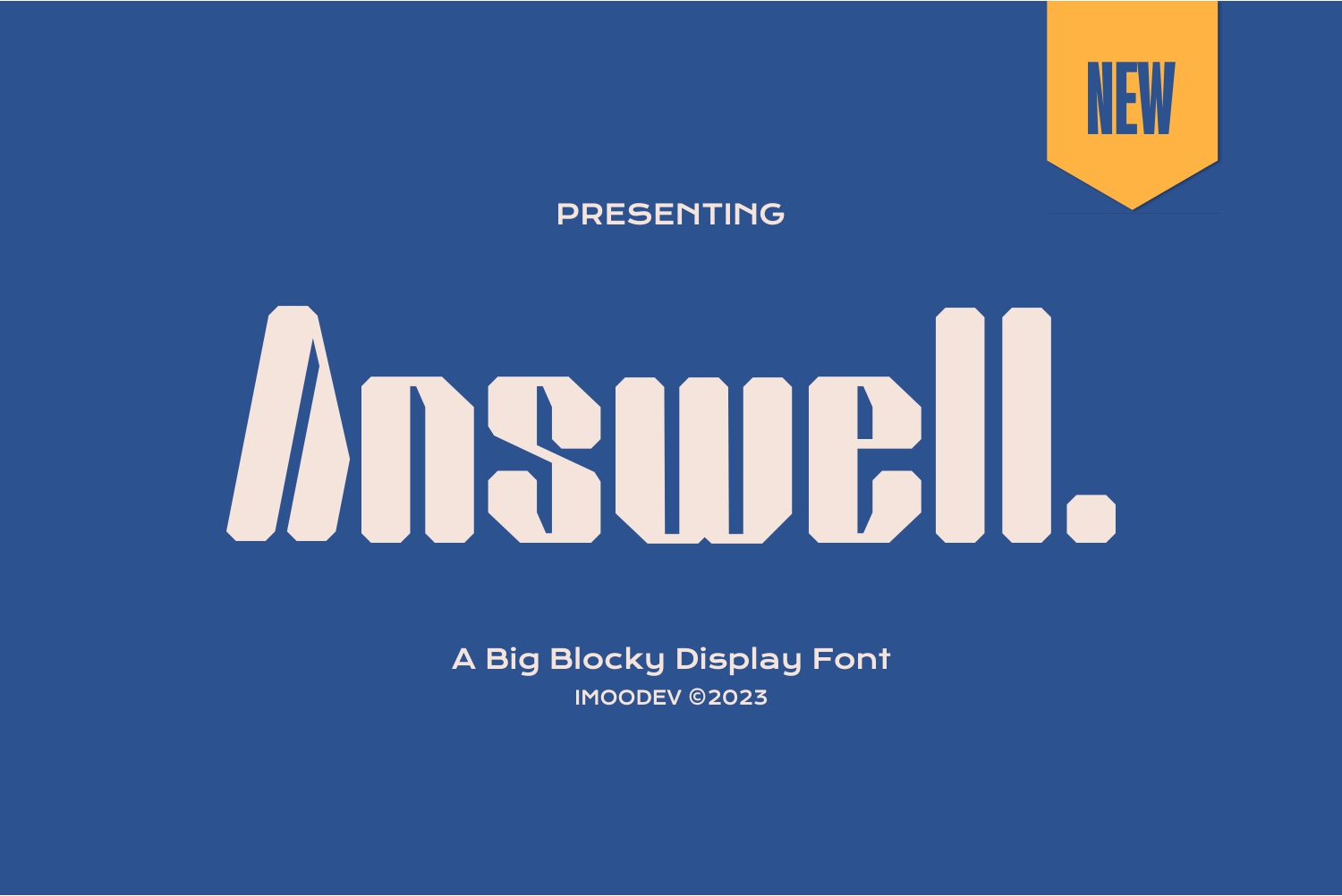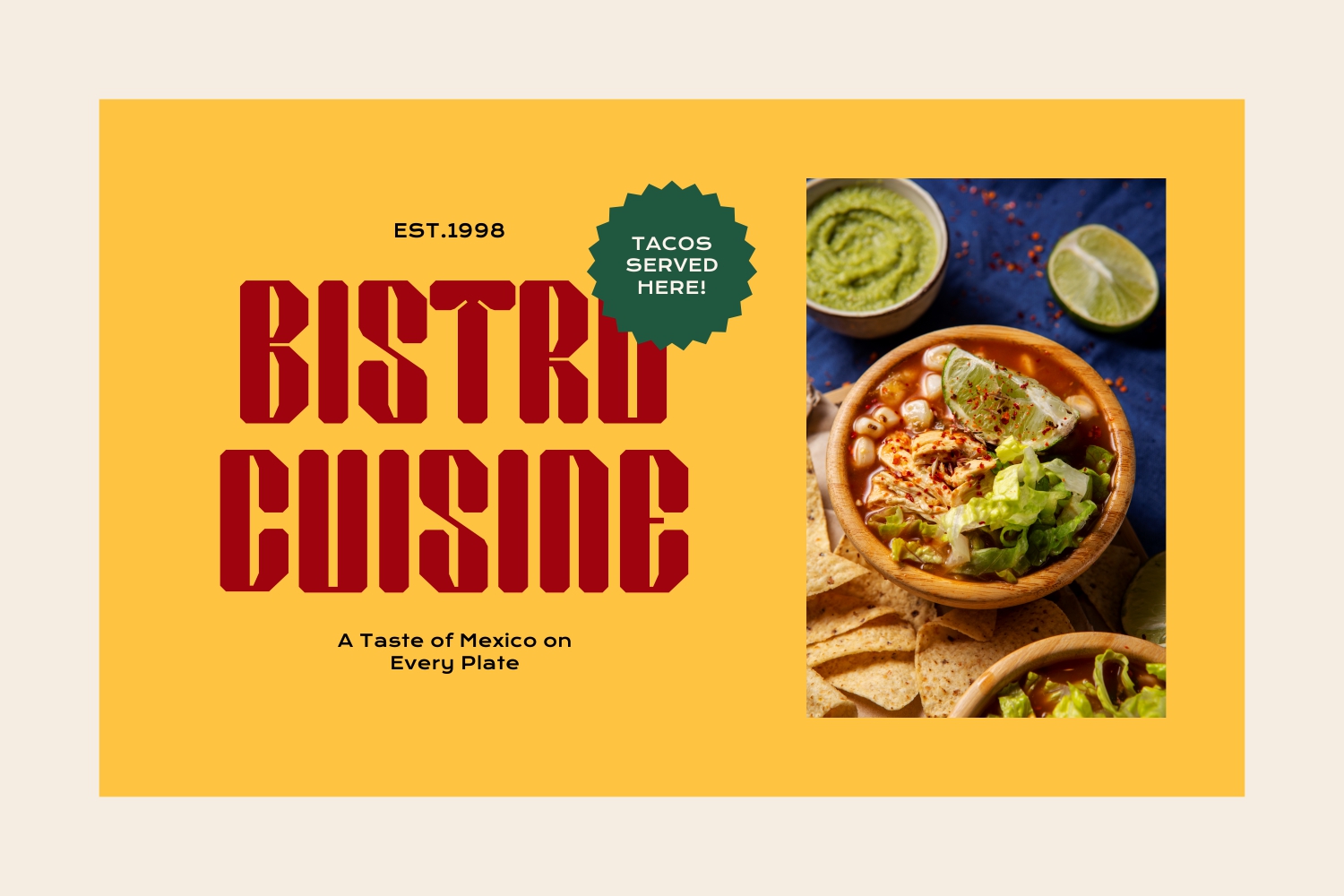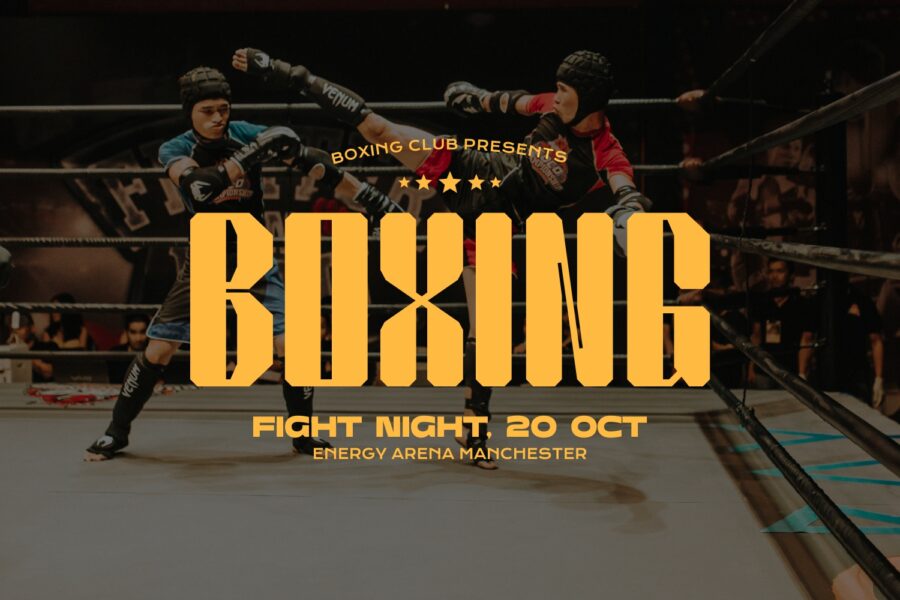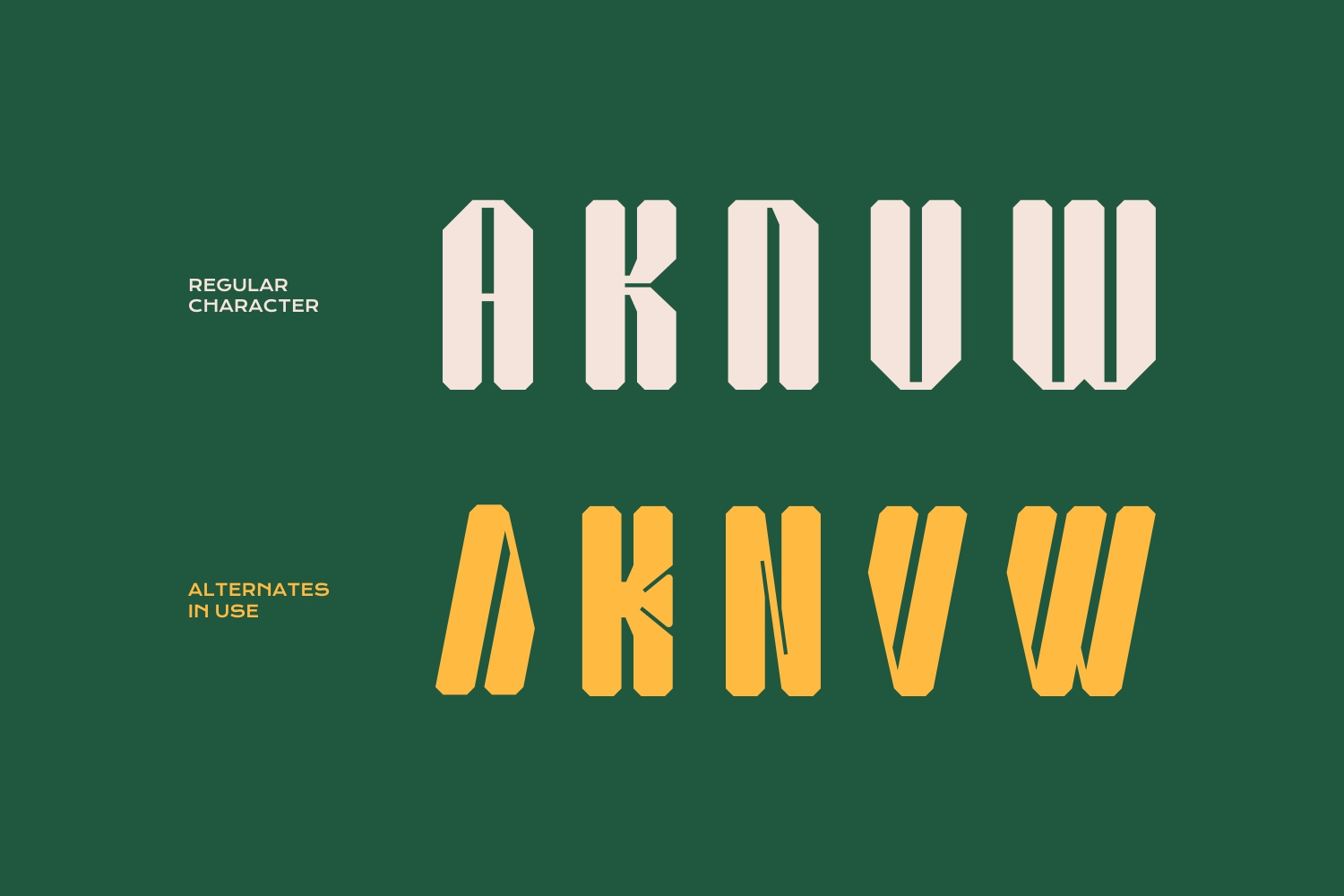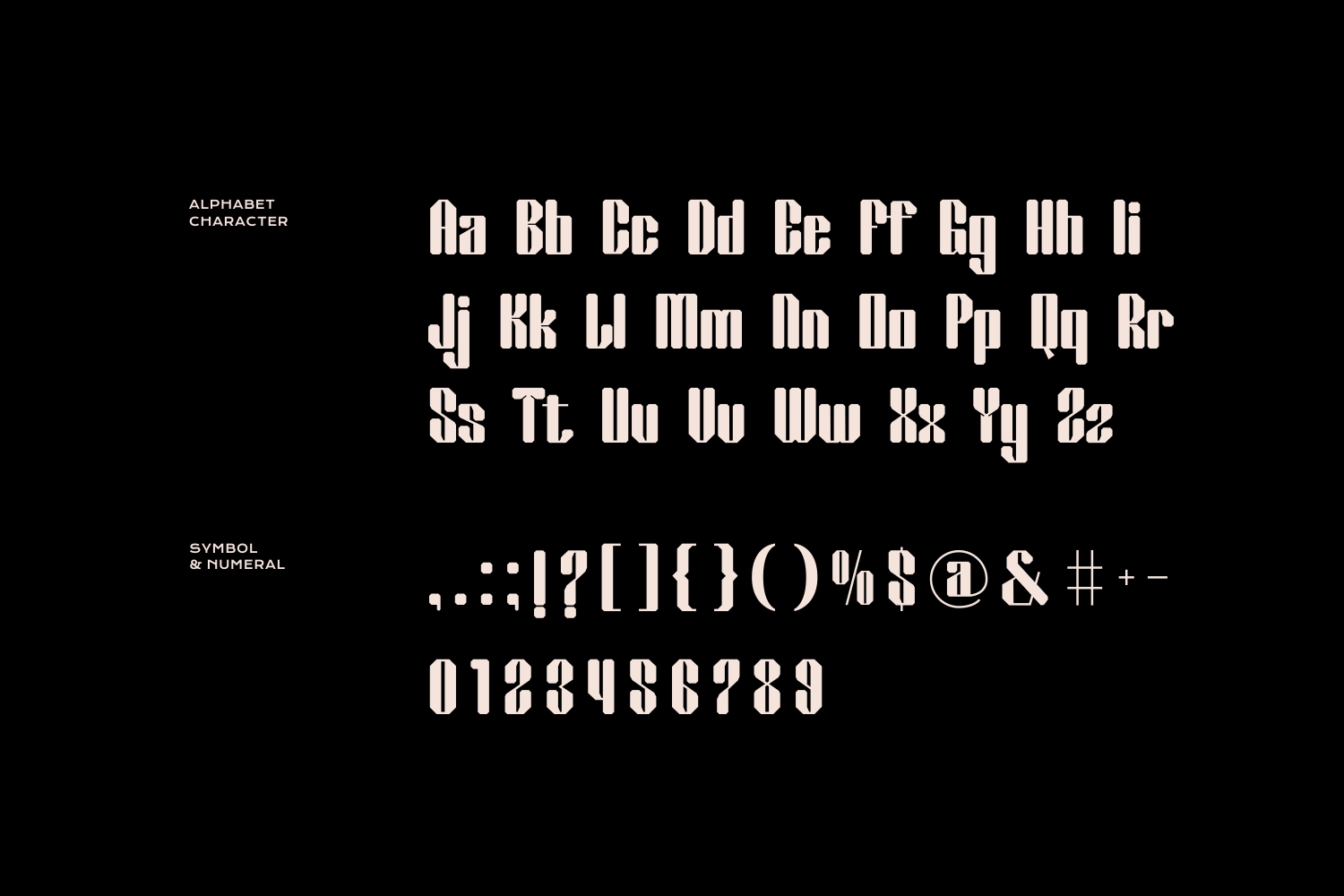
Answell is a bold and distinctive display font with a big blocky style that commands attention. Its geometric forms and sharp angles give it a strong, industrial feel, making it perfect for impactful headlines, posters, sports branding, and urban-inspired designs. The font includes unique alternate characters, allowing for creative variations and a custom touch in your typography projects.
With its powerful presence and versatile design, Answell is ideal for projects that demand confidence and style. From restaurant logos to event promotions, this font delivers a striking visual punch that stands out in any layout. Its bold shapes and attention-grabbing structure ensure that your message is seen loud and clear.